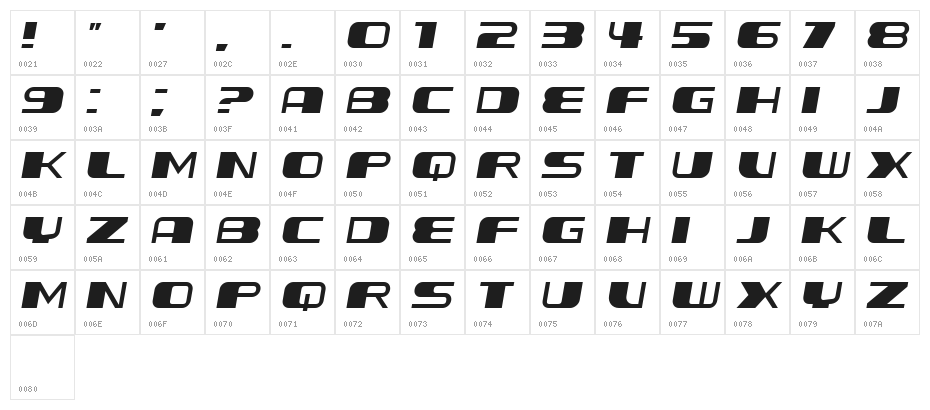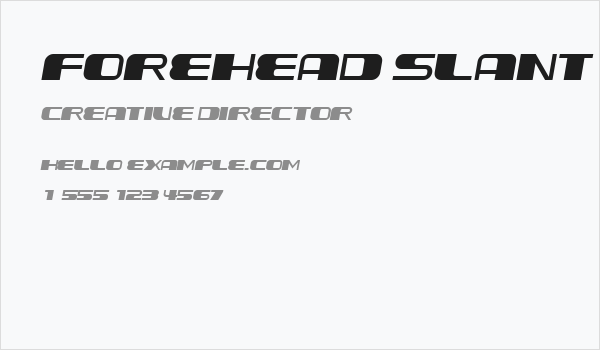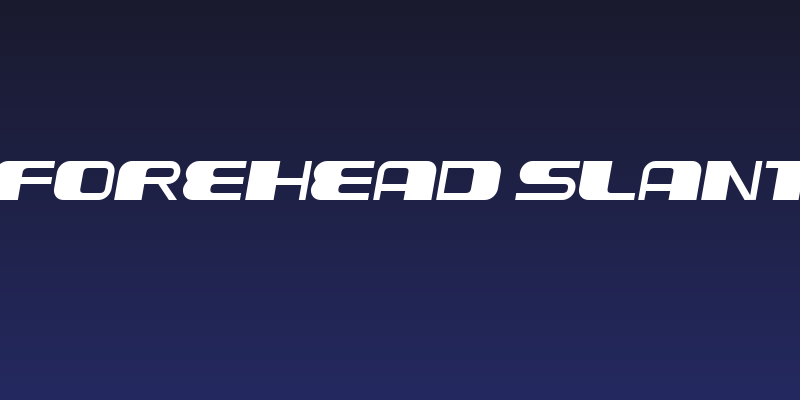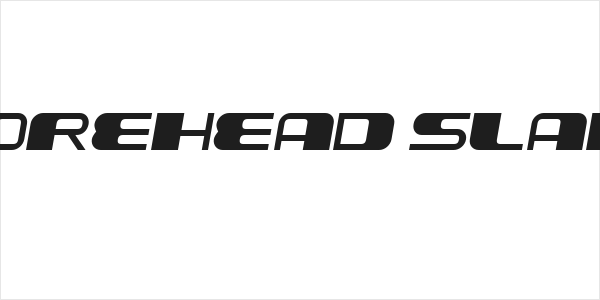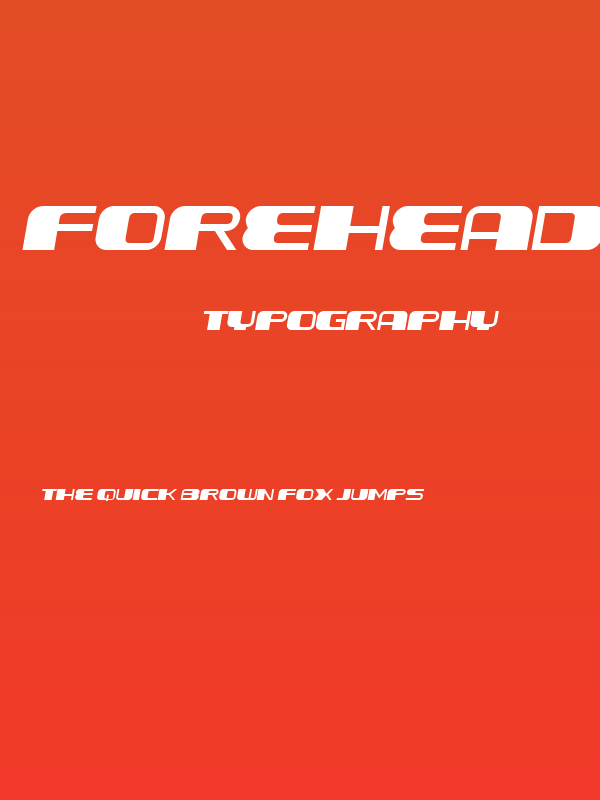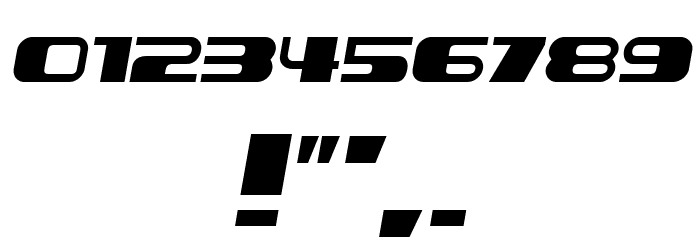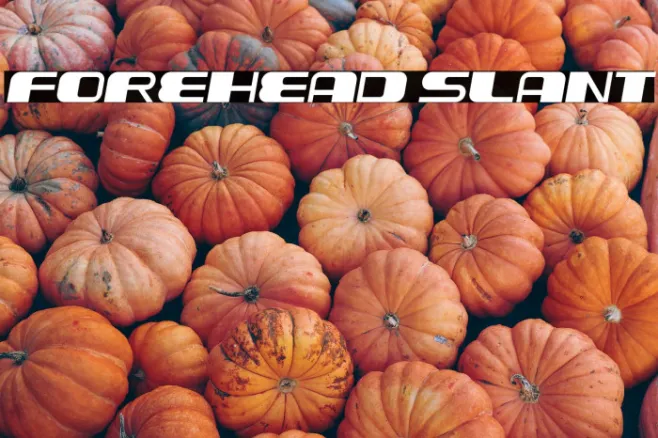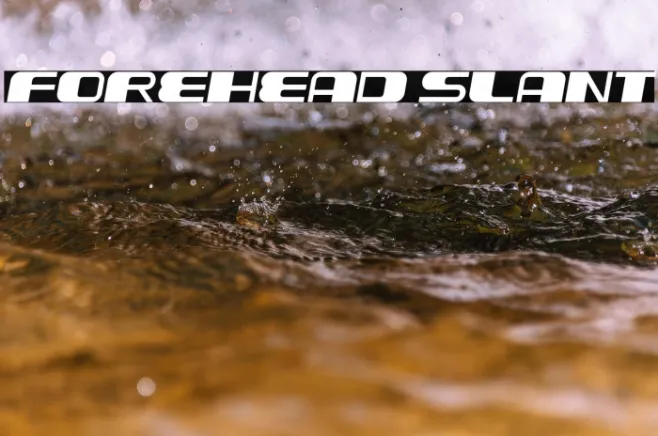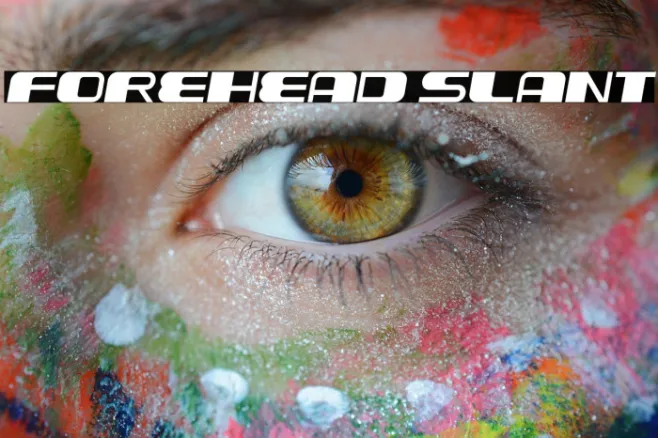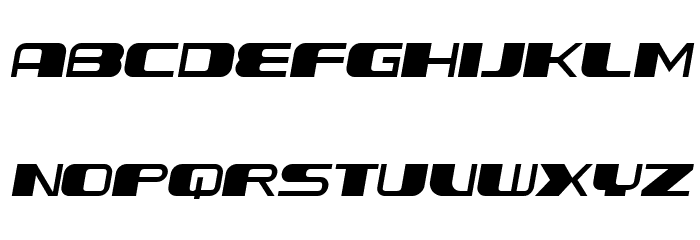
Forehead Slant Font
Forehead Slant Description
This font features a bold and dynamic design with a distinct slant, giving it a sense of motion and energy. The characters are wide and have a futuristic appearance, with sharp angles and clean lines. The uppercase letters are particularly striking, with a consistent thickness that adds to the boldness of the font. The numerals and special characters maintain this style, ensuring a cohesive look across all elements. The overall design is modern and eye-catching, making it suitable for projects that require a strong visual impact.
| Proposed Projects | Ideal for sports branding, tech-related designs, futuristic themes, and dynamic advertising campaigns. |